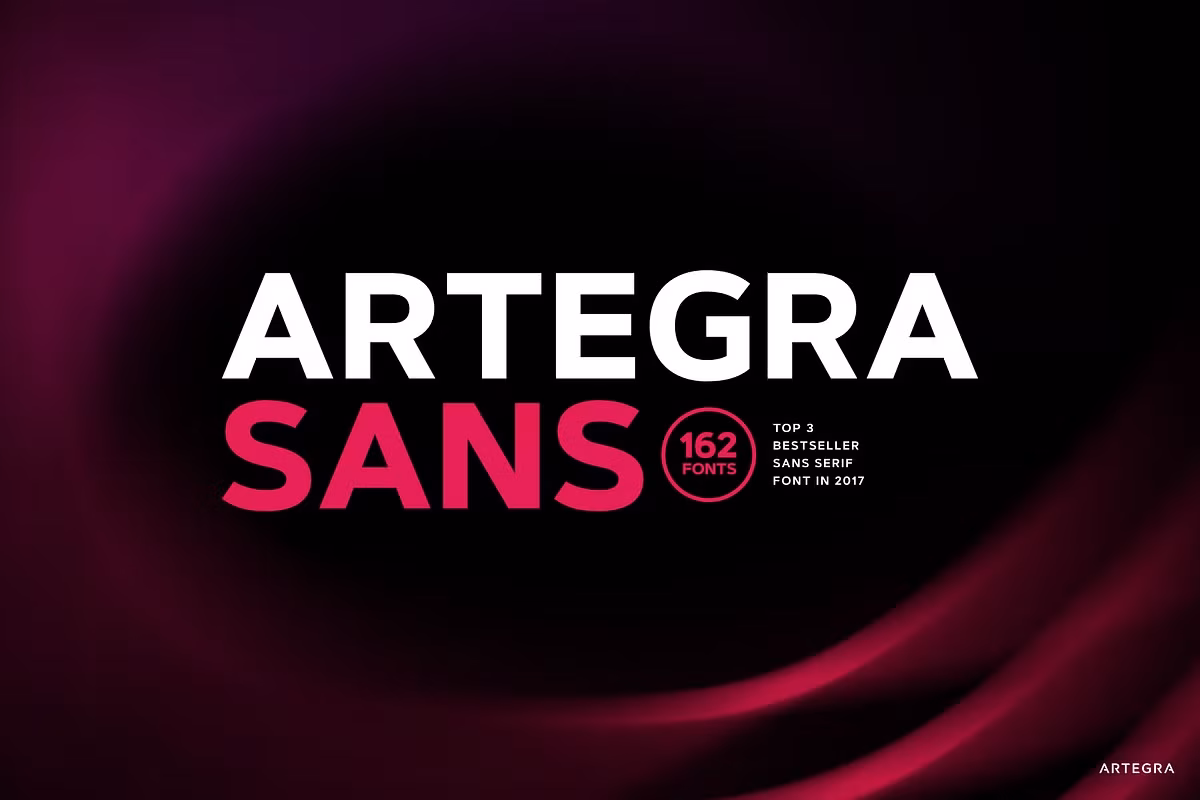
Artegra Sans Font Free Download is a sleek and highly versatile geometric sans-serif typeface designed for modern, professional use. Ideal for branding, user interfaces, editorial layouts, and corporate design, this font combines precision with personality to deliver clean, contemporary results.
With a wide range of weights and excellent legibility, Artegra Sans Font Free Download provides flexibility for both digital and print projects. Whether you're building a tech brand, designing minimalist packaging, or crafting a modern website, Artegra Sans adapts seamlessly to your needs. Its balanced proportions and neutral tone make it a reliable choice across industries. Try it out today to experience its clarity and elegance before obtaining the commercial license.